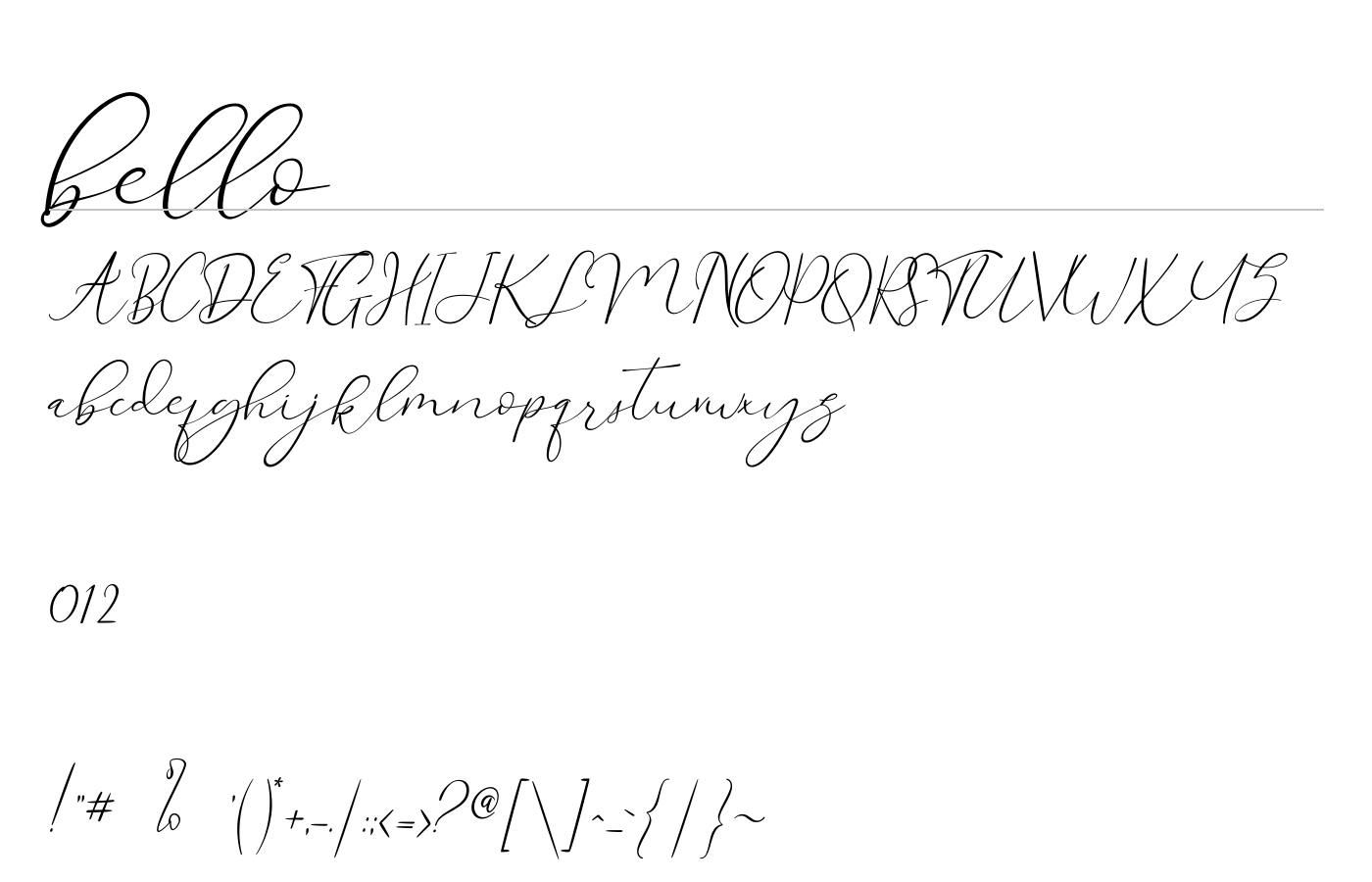
Bello is a delicate, elegant script font characterized by its thin, flowing strokes and graceful, handwritten style. It features a light weight with high contrast, smooth curves, and a romantic, airy feel, making it perfect for luxury branding, wedding invitations, and refined editorial projects. Its charming and sophisticated personality adds a personal, artistic touch to any design that seeks a warm and graceful appearance.
bello Font